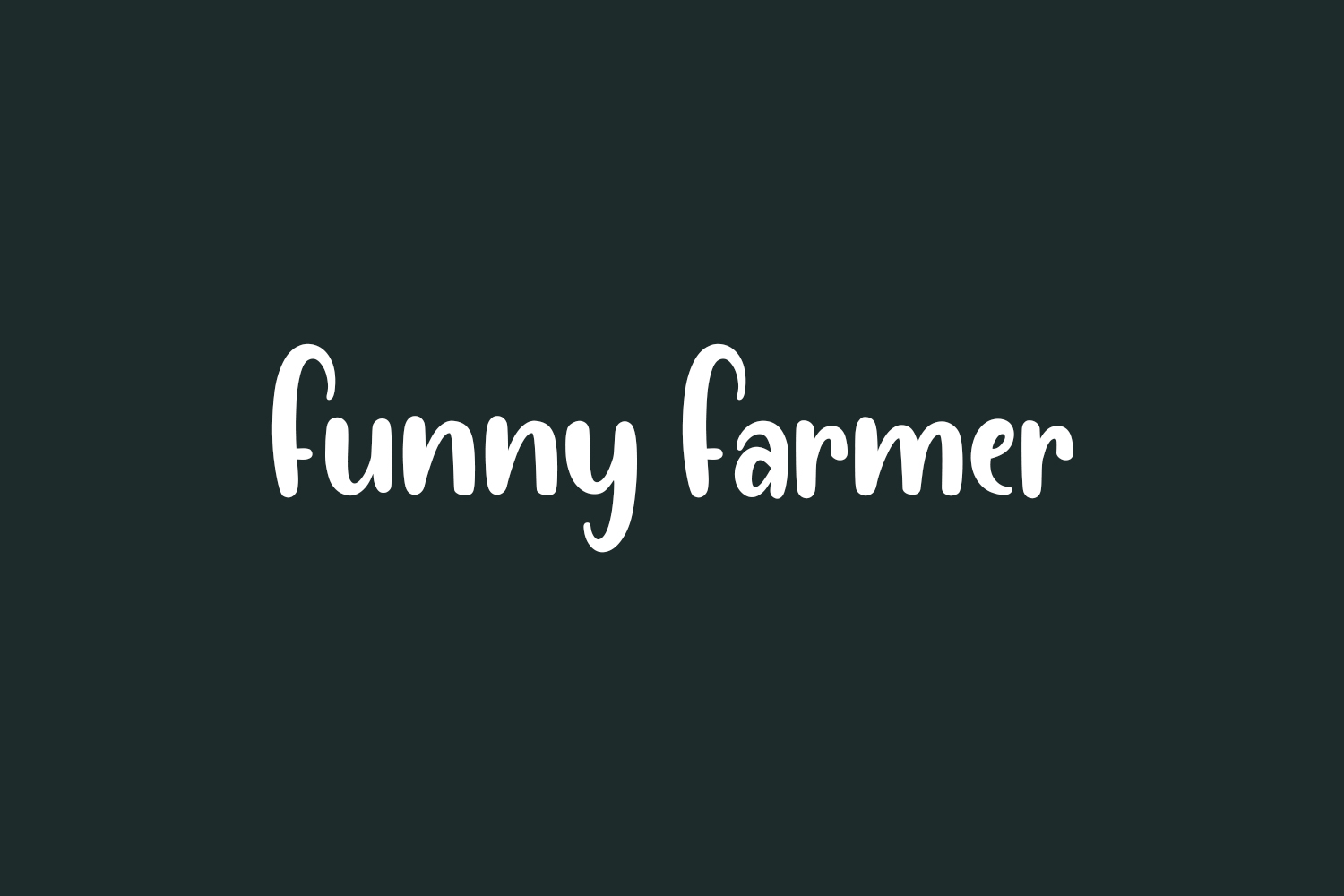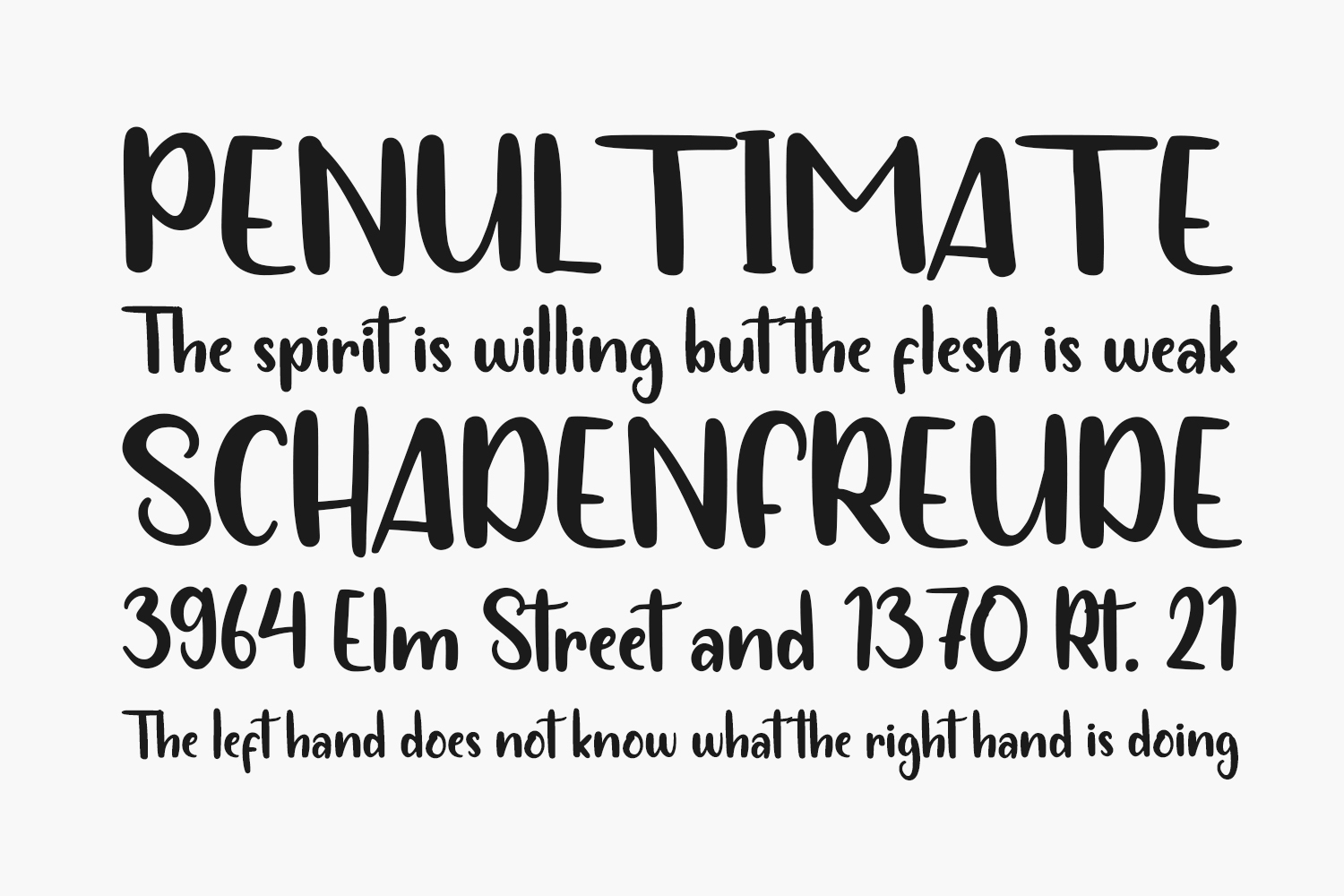
Introducing the Funny Farmer Free Font, a playful and whimsical typeface that brings a touch of joy and lightheartedness to any design project. With its handwritten style and quirky characters, this font is perfect for creating designs that are both fun and memorable.
The Funny Farmer Free Font is inspired by the carefree spirit of country living and the simple pleasures of farm life. Whether you’re designing a children’s book cover, a whimsical logo, or a greeting card, this font will add a unique and charming touch to your work. Funny Farme Free Font is free for personal use only. Please purchase the full version for commercial use.